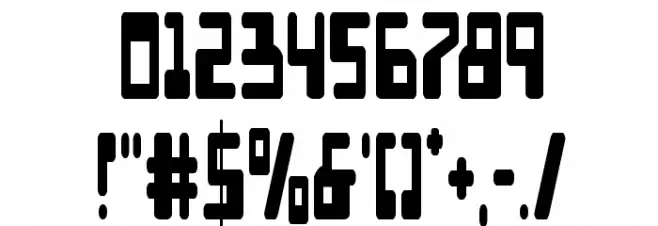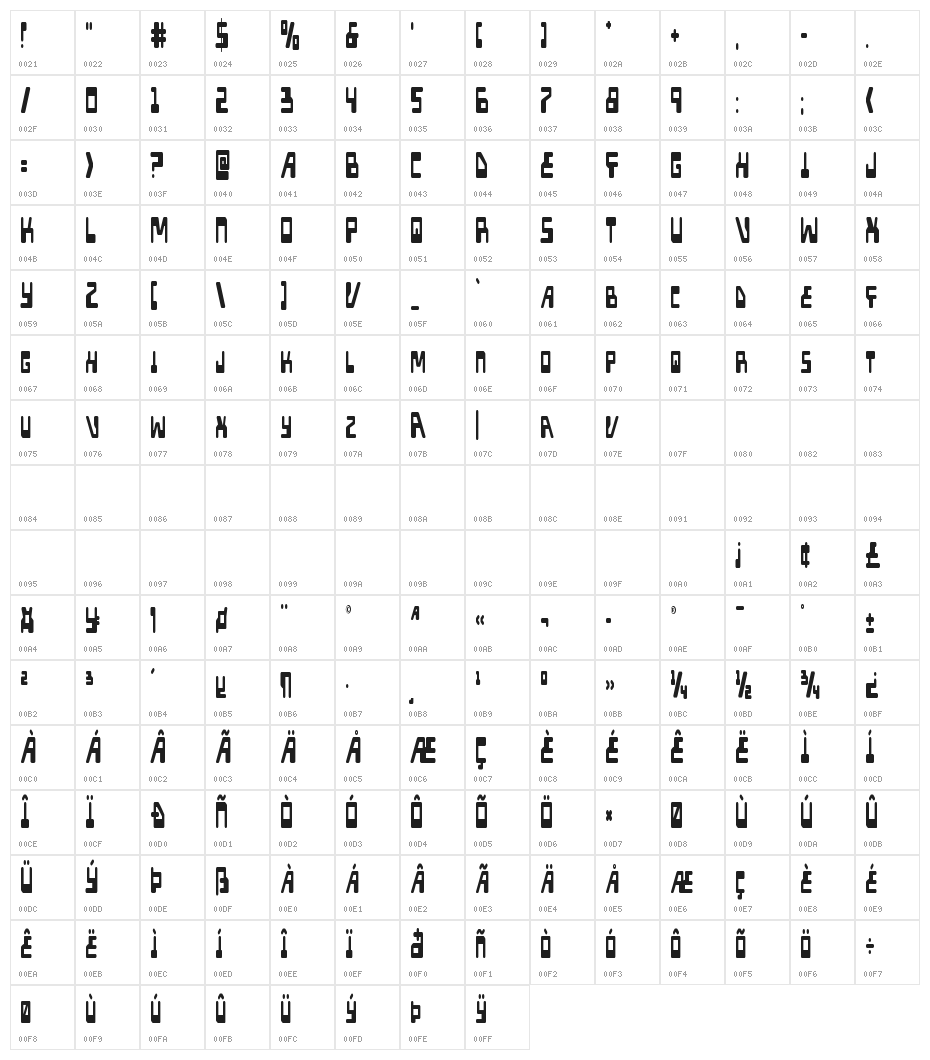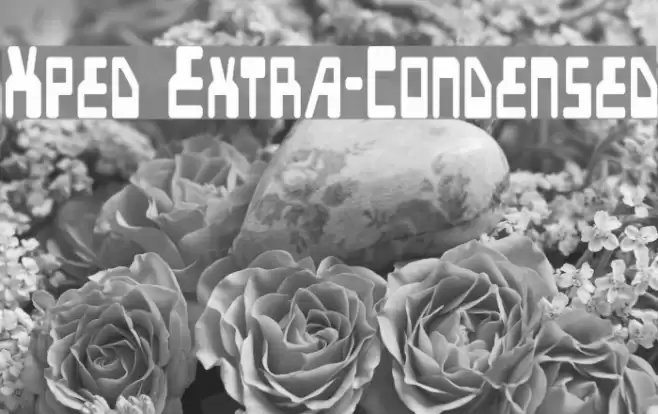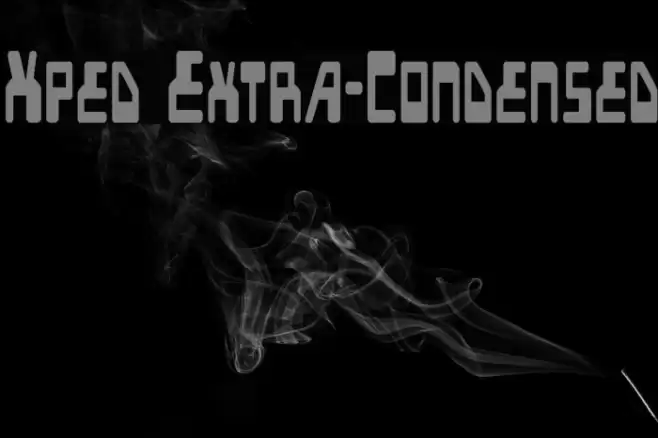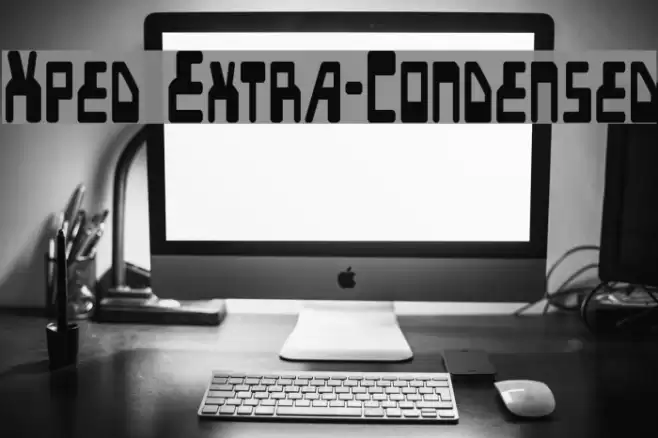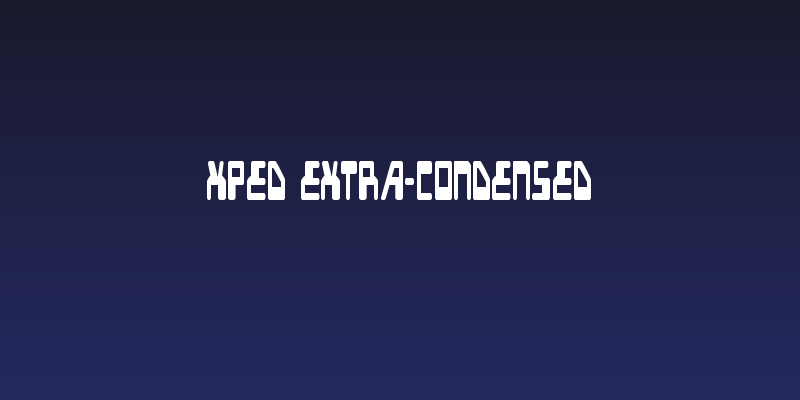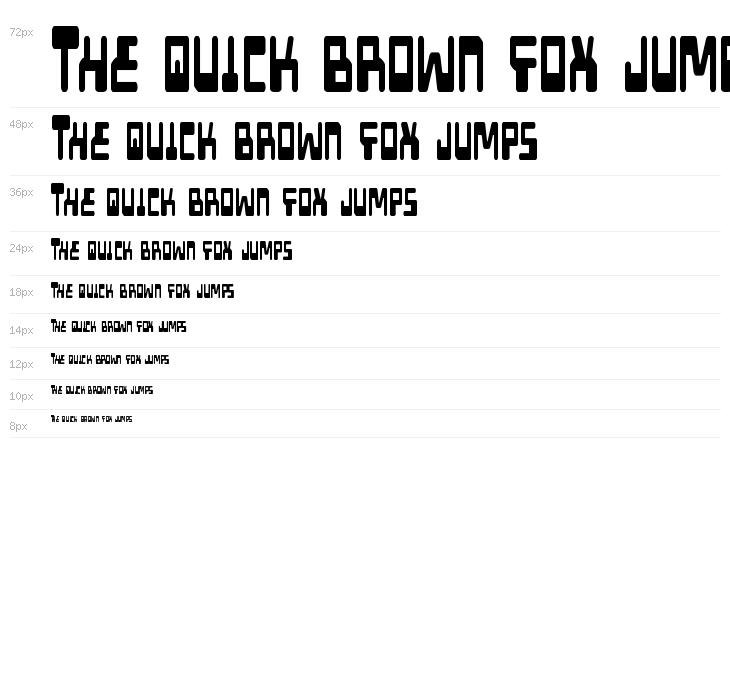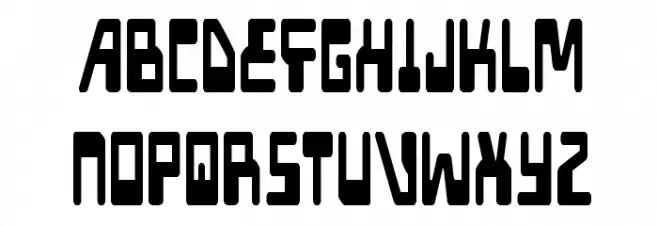
Xped Extra-Condensed Font
Xped Extra-Condensed Description
This font features a bold and geometric design with a distinctly modern and futuristic aesthetic. The characters are extra-condensed, giving them a compact appearance that maximizes space while maintaining readability. The angular and blocky shapes of the letters create a strong visual impact, making it ideal for attention-grabbing headlines or titles. The uniform stroke width throughout the characters contributes to a clean and cohesive look. This font's unique style is well-suited for projects that require a contemporary and edgy feel, such as tech-related branding, posters, or digital media.
| Proposed Projects | Ideal for tech branding, futuristic posters, digital media, and attention-grabbing headlines. |